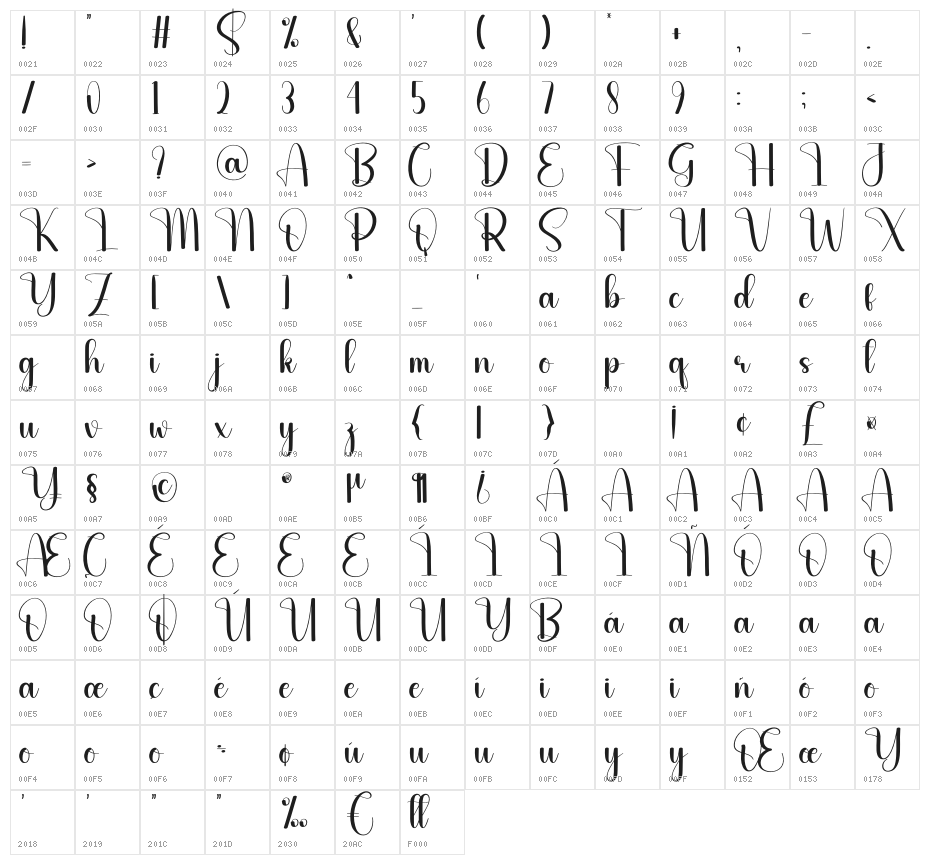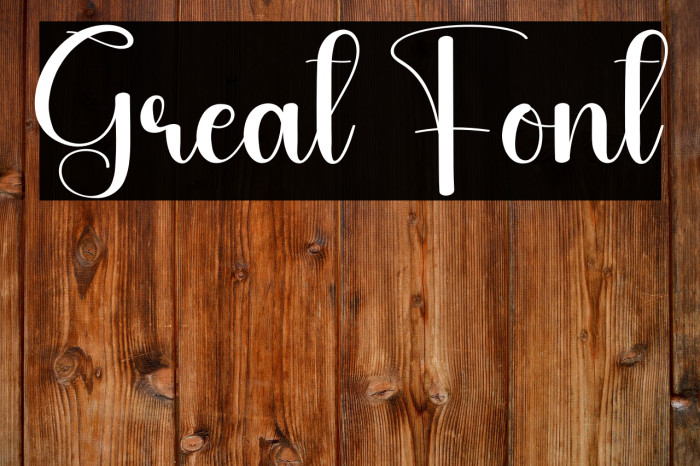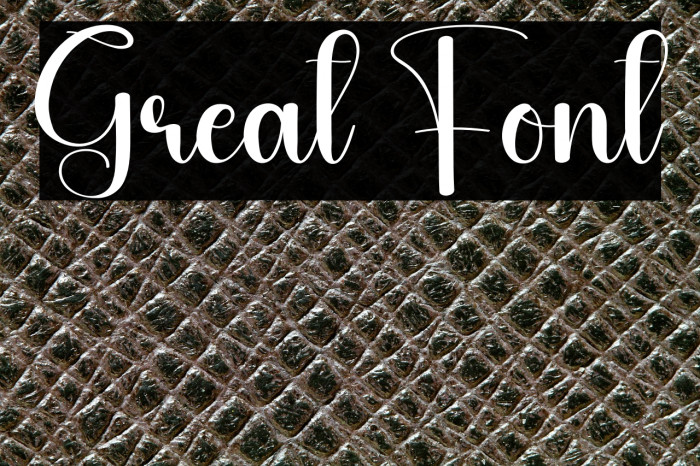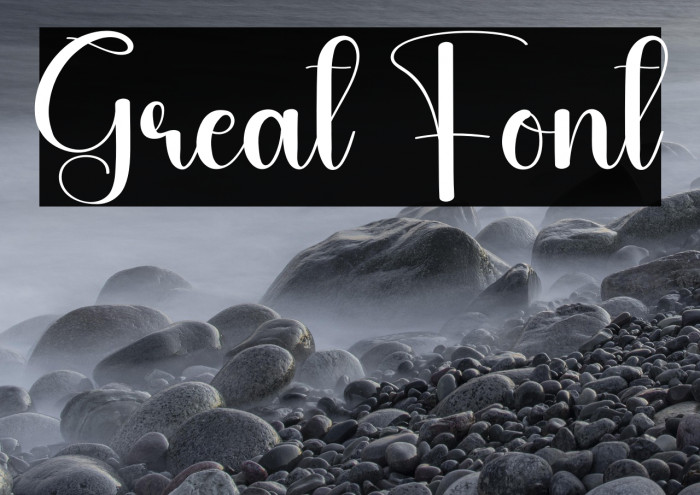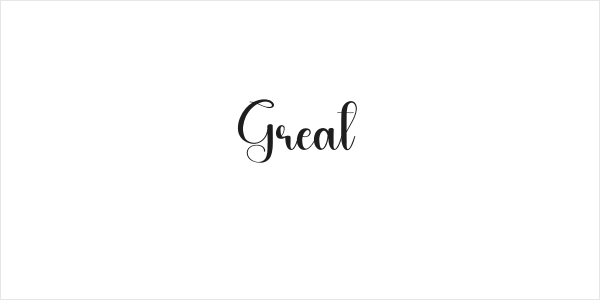
Great Font
Great Description
A decorative script font with elegant, flowing strokes and high contrast between thick and thin lines. Uppercase letters are ornate with swashes, while lowercase letters are more rounded and connected, giving a handwritten, calligraphic feel.
| Overall Style | Decorative, Elegant, Handwritten |
| Use Case | Logos, Invitations, Headlines, Decorative text |
| Proposed Projects | Wedding invitations, greeting cards, branding, boutique logos, social media graphics. |